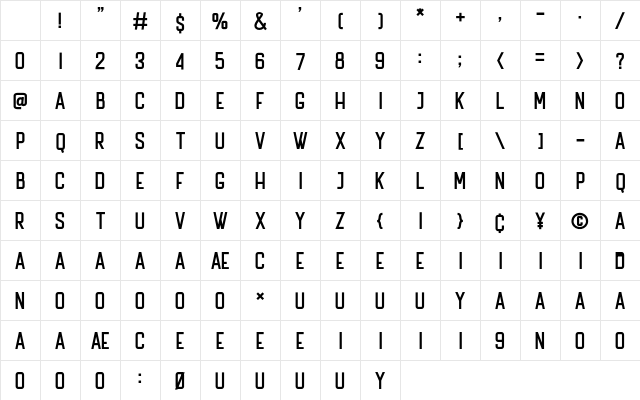
Complete The Bredan Sans Regular glyph index. Displaying only characters natively supported by The Bredan Sans Regular font.
The Bredan Sans is a composed and adaptable typeface that performs quietly and consistently across a wide range of design contexts.